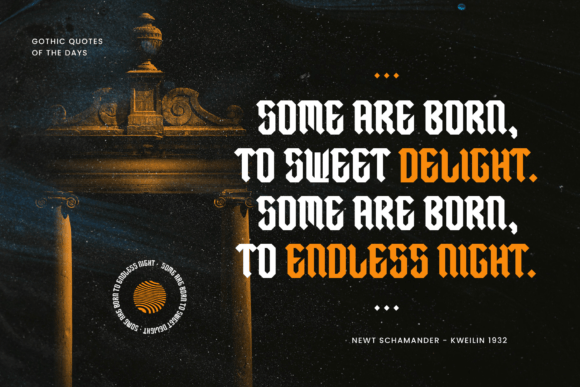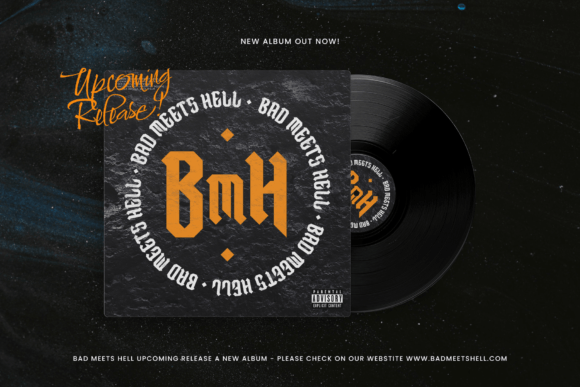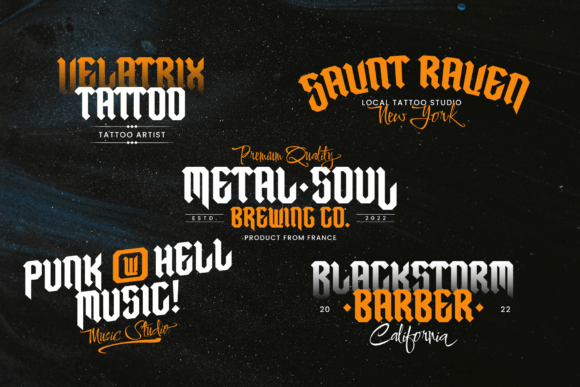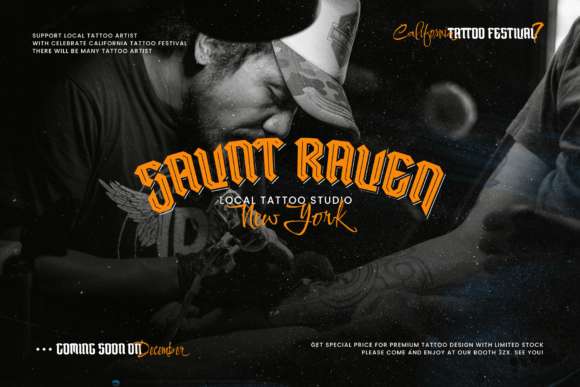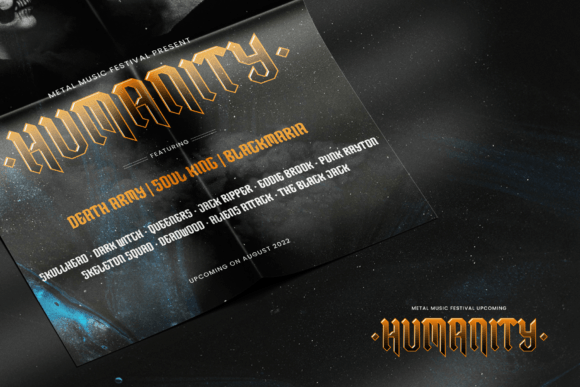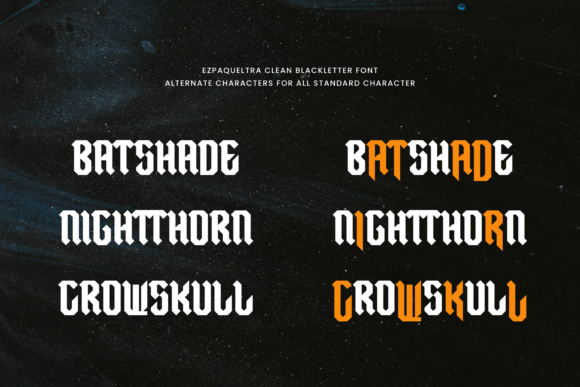
Introducing Ezpaqueltra Font: The Ultimate Blackletter Typeface for Bold Designs
Are you looking for a font that can add a touch of elegance and sophistication to your designs? Look no further than Ezpaqueltra, a splendid blackletter font that is sure to impress with its stylish features. This beautiful typeface is perfect for product packaging, branding, or any other project that requires bold and daring typography.
What is Ezpaqueltra Font?
Ezpaqueltra is a modern blackletter font that combines traditional calligraphy techniques with contemporary design elements. The result is a unique and eye-catching typeface that is both elegant and edgy. With its bold lines, intricate details, and flowing curves, Ezpaqueltra is sure to make a statement in any design.
Key Features of Ezpaqueltra Font
- Bold and Daring: Ezpaqueltra is a blackletter font that is designed to make a statement. Its bold lines and intricate details make it perfect for designs that require a touch of drama and elegance.
- Stylish Features: Ezpaqueltra comes with a range of stylish features, including swashes, ligatures, and alternate characters. These features allow you to customize your text and add a touch of personality to your designs.
- Highly Versatile: Ezpaqueltra is a highly versatile font that can be used for a wide range of design projects, from product packaging and branding to posters and signage.
- Easily Readable: Despite its bold and intricate design, Ezpaqueltra is surprisingly easy to read, making it perfect for body text as well as headlines.
Uses of Ezpaqueltra Font
Ezpaqueltra is a highly versatile font that can be used for a wide range of design projects. Here are some ideas to get you started:
- Product Packaging: Ezpaqueltra is perfect for product packaging that requires a touch of elegance and sophistication. Use it to create eye-catching labels, logos, and branding materials.
- Branding: Ezpaqueltra is a great choice for branding projects that require a bold and daring typeface. Use it to create logos, business cards, and other marketing materials.
- Posters and Signage: Ezpaqueltra is perfect for posters and signage that require a bold and eye-catching typeface. Use it to create striking headlines and attention-grabbing graphics.
- Stationery: Ezpaqueltra is a great choice for stationery projects, such as letterheads, invoices, and greeting cards.
Tips for Using Ezpaqueltra Font
Here are some tips for using Ezpaqueltra font in your designs:
- Use it sparingly: Ezpaqueltra is a bold and daring font, so use it sparingly to avoid overwhelming your design.
- Experiment with different sizes: Ezpaqueltra looks great in a range of sizes, from small body text to large headlines.
- Pair it with other fonts: Ezpaqueltra looks great when paired with other fonts, such as sans serifs and scripts.
- Take advantage of stylish features: Ezpaqueltra comes with a range of stylish features, such as swashes and ligatures. Take advantage of these features to add a touch of personality to your designs.
Ezpaqueltra is a splendid blackletter font that is sure to impress with its stylish features. With its bold lines, intricate details, and flowing curves, Ezpaqueltra is perfect for product packaging, branding, or any other project that requires bold and daring typography. Whether you’re a designer, craft or business owner, Ezpaqueltra is a great choice for any design project.